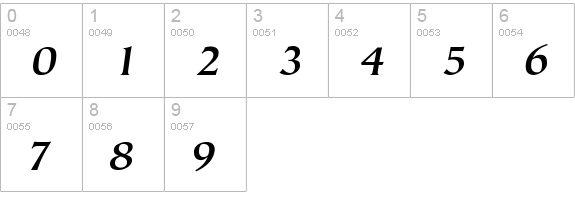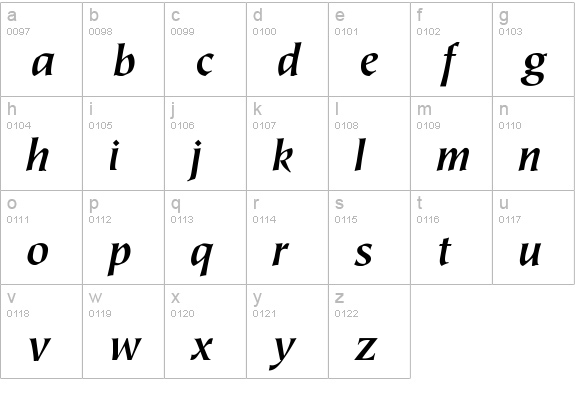
TiepoloICGBoldItalic Font Details
TiepoloICGBoldItalic font is a stunning and elegant typeface that exudes sophistication and style. Its bold and italic design adds a touch of flair and uniqueness to any project or design. With its smooth curves and graceful strokes, this font is perfect for creating eye-catching headlines, titles, and logos. What sets TiepoloICGBoldItalic font apart is not only its exceptional beauty but also its accessibility. This font is available for free download at FontsMarket.com, making it easily accessible to designers, creatives, and anyone in need of a striking and versatile typeface. Whether you're working on a professional project or a personal endeavor, TiepoloICGBoldItalic font is sure to elevate your design and captivate your audience. Its versatility allows it to be used across a wide range of applications, from print materials such as brochures and posters to digital platforms like websites and social media graphics. The attention to detail in the design of TiepoloICGBoldItalic font is truly exceptional. Each letter is meticulously crafted to ensure a harmonious and visually pleasing composition. The boldness of the font adds a sense of confidence and strength, while the italic style brings a touch of elegance and sophistication. With TiepoloICGBoldItalic font, you have the freedom to explore and experiment with different design possibilities. Its versatility allows you to create both modern and timeless designs, adapting to any project or aesthetic. In conclusion, TiepoloICGBoldItalic font is a remarkable typeface that combines beauty, versatility, and accessibility. Its bold and italic design, along with its flawless execution, make it a top choice for designers worldwide. And the best part is, it is freely available to download at FontsMarket.com, ensuring that anyone can enjoy the beauty and versatility of this stunning font.